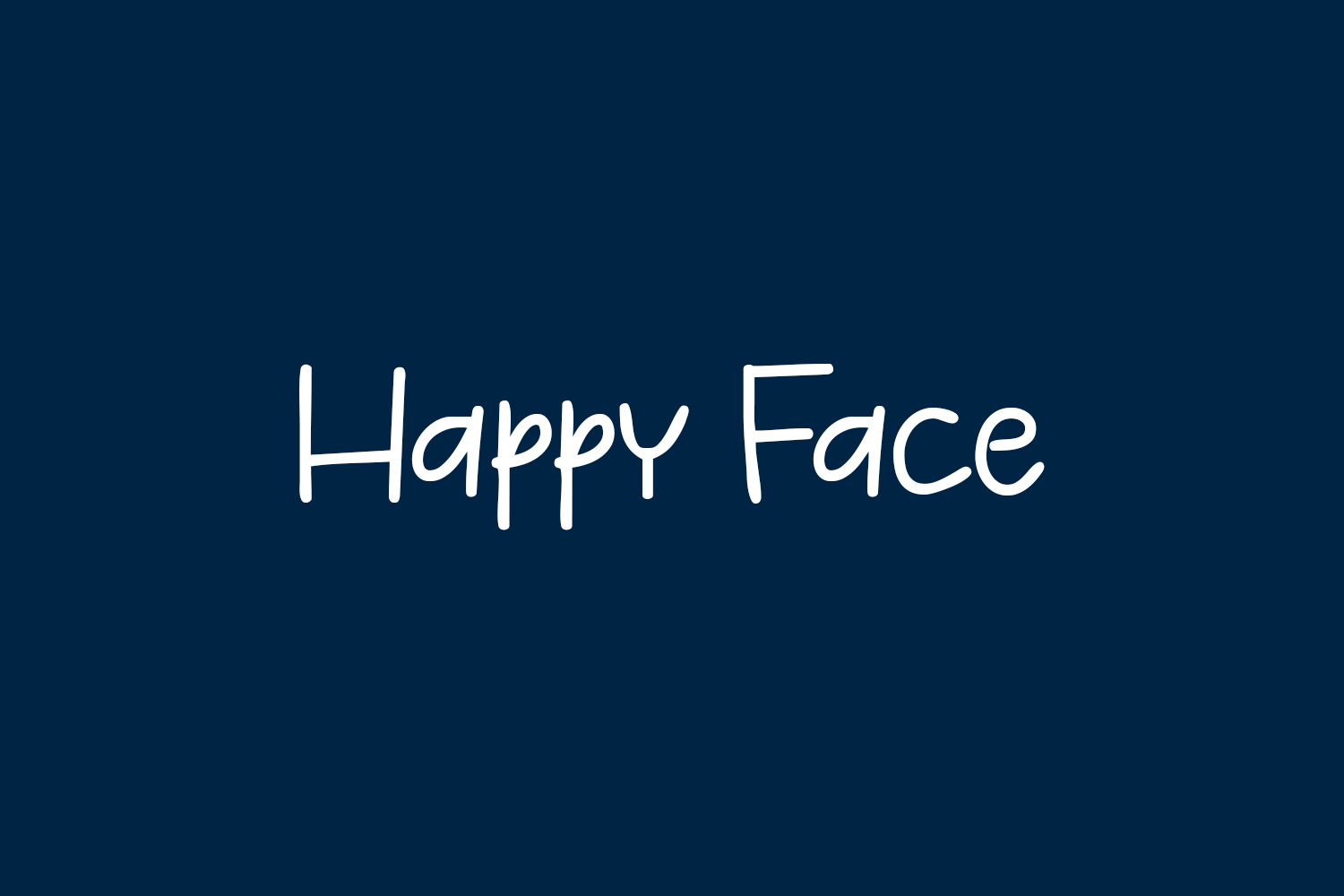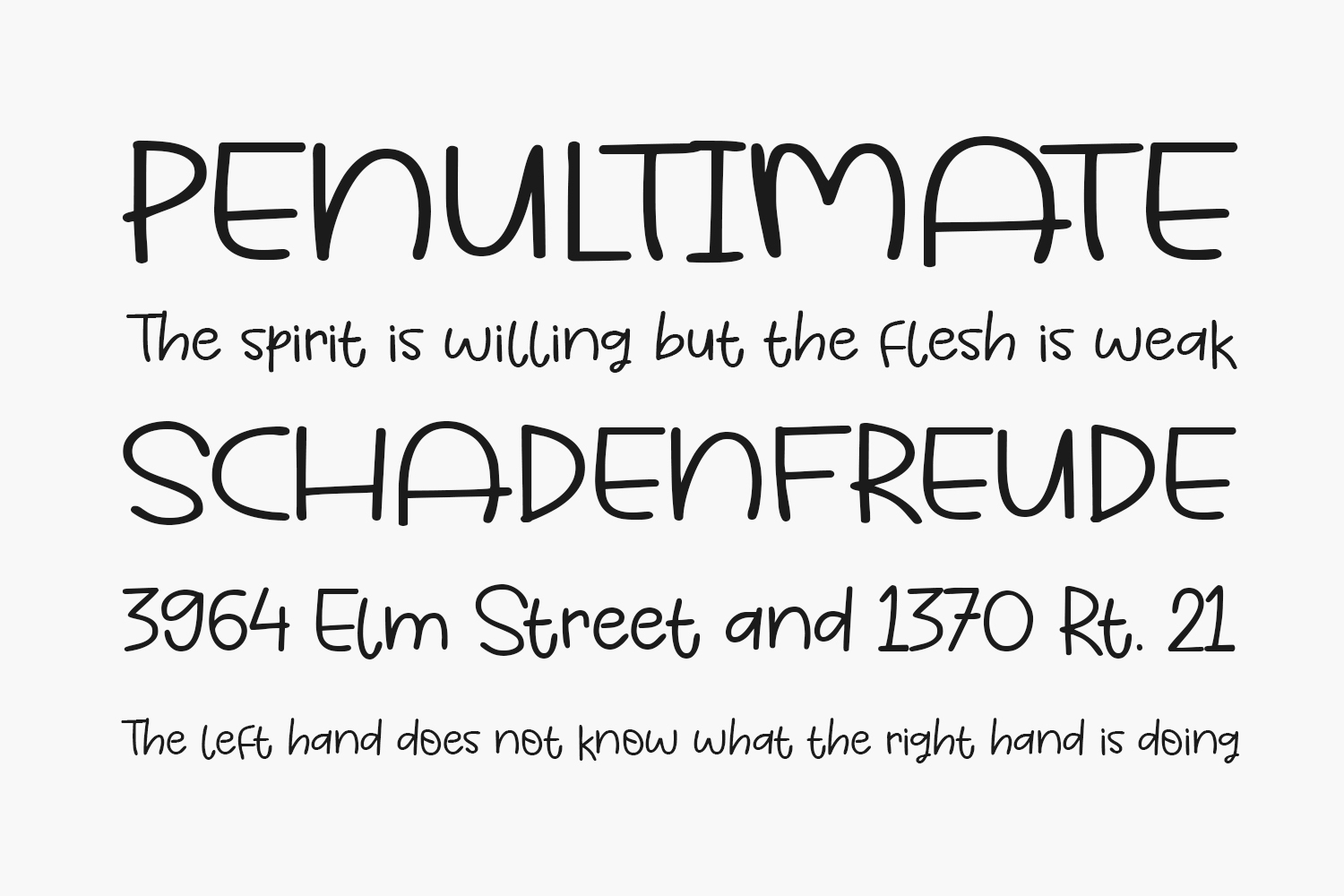
Happy Face Free Font is a cute handwritten font, featuring a lovely style. No matter the topic, this font will be an incredible asset to your fonts’ library, as it has the potential to elevate any creation. Happy Face Free Font was designed by Olivetype and is free for personal use only. Please purchase the full version for commercial use.